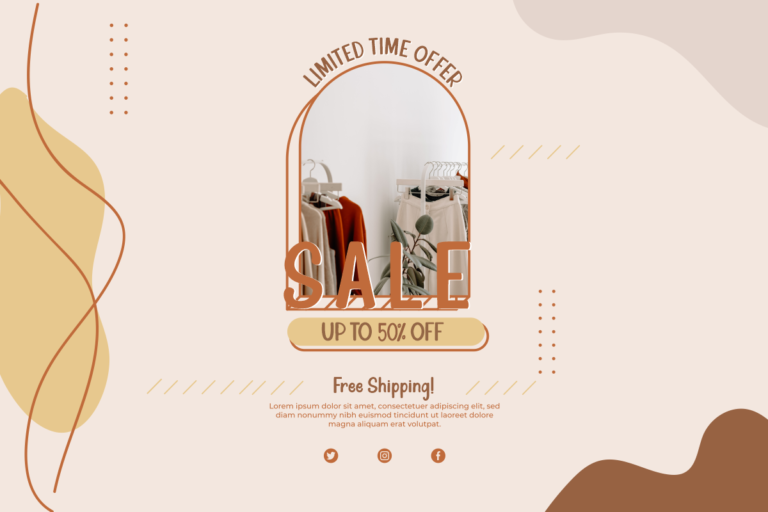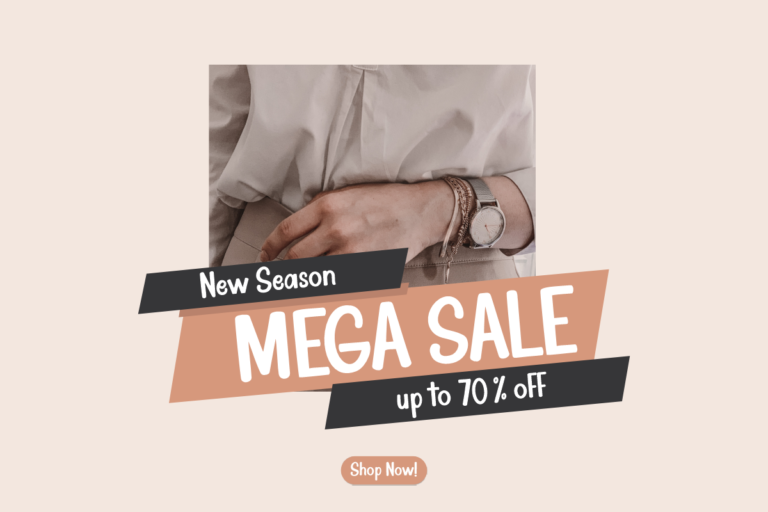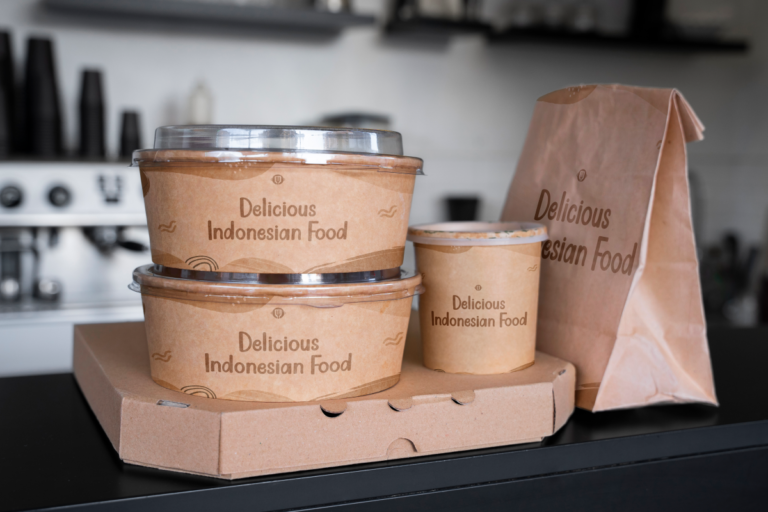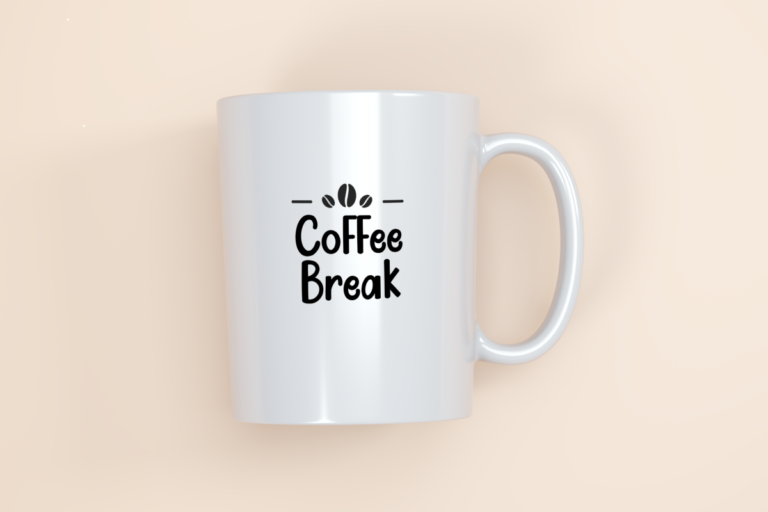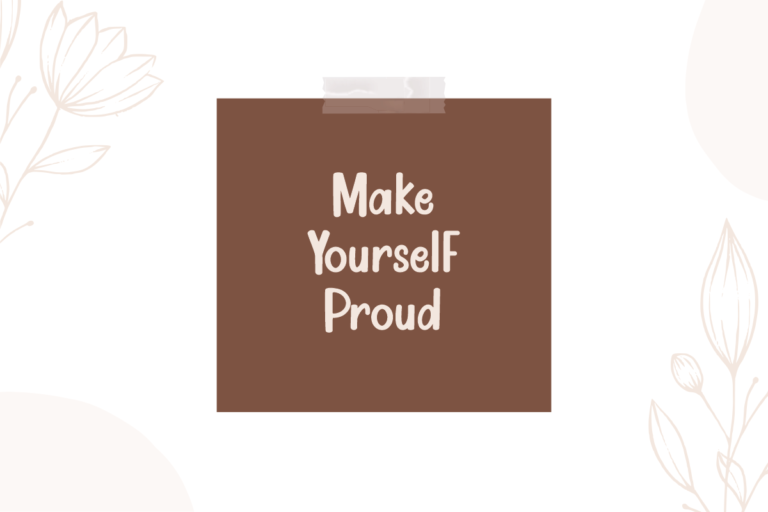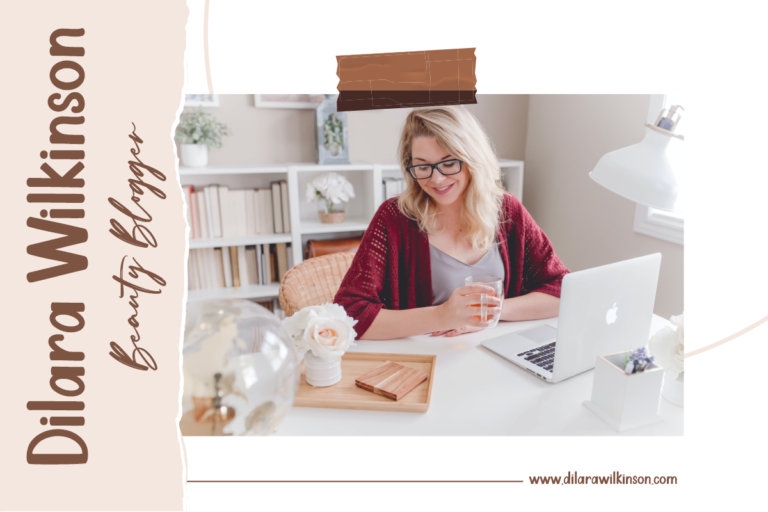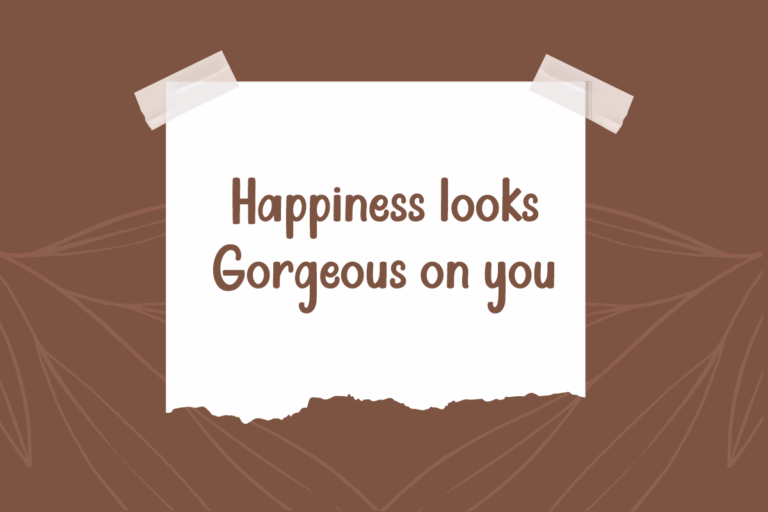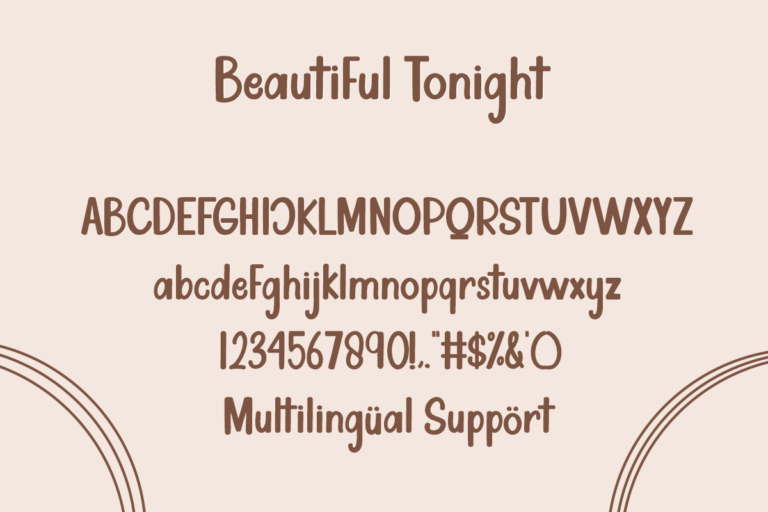
- Beautiful Tonight – Display Font
Beautiful Tonight
The quick brown fox jumps over the lazy dog
Beautiful Tonight – Font is a new stylish Display font. It’s perfect for logo, branding, title, social media posts, advertisements, product packaging, product designs, label, photography, watermark, special event, magazine, web designs, etc. If you have any questions please don’t hesitate to contact me.